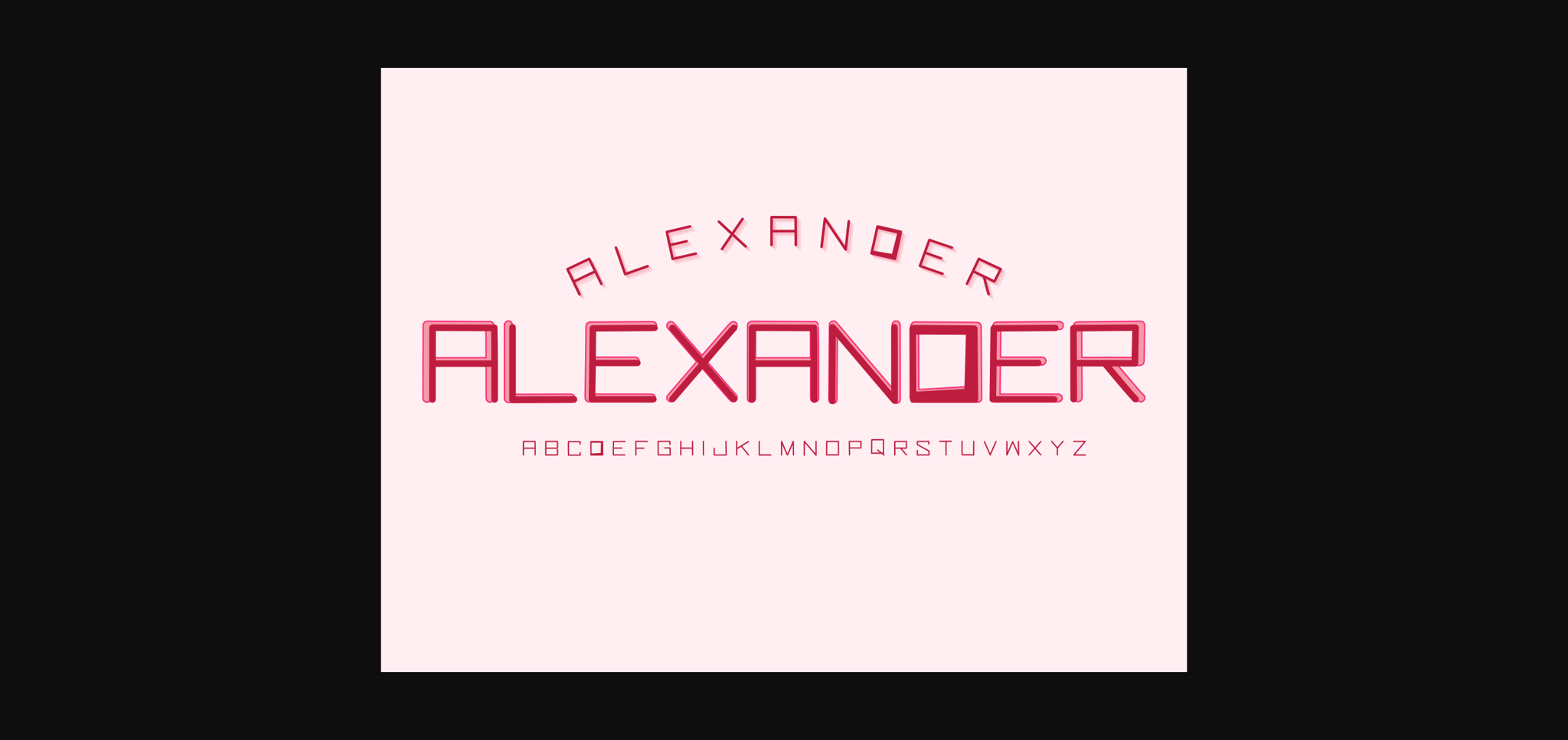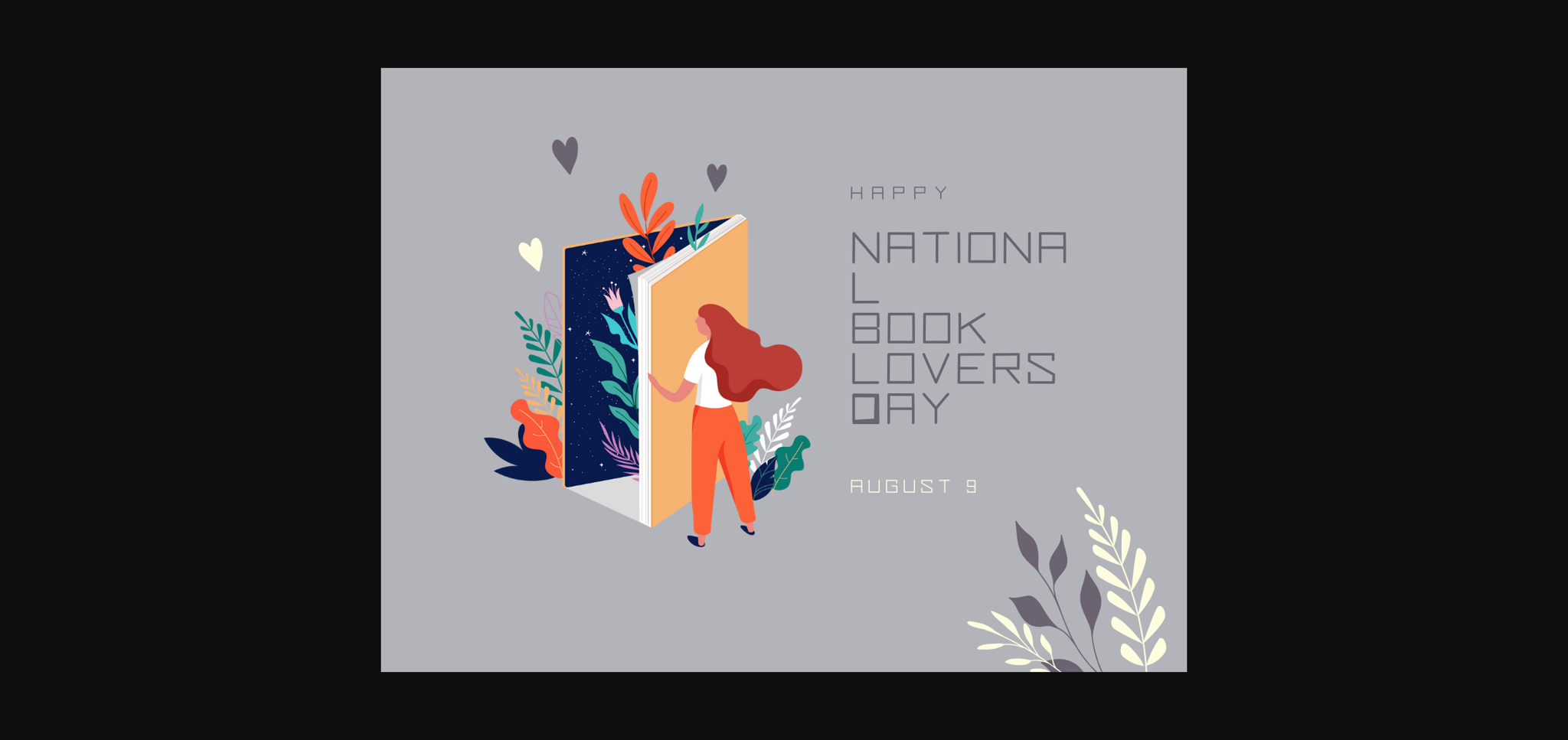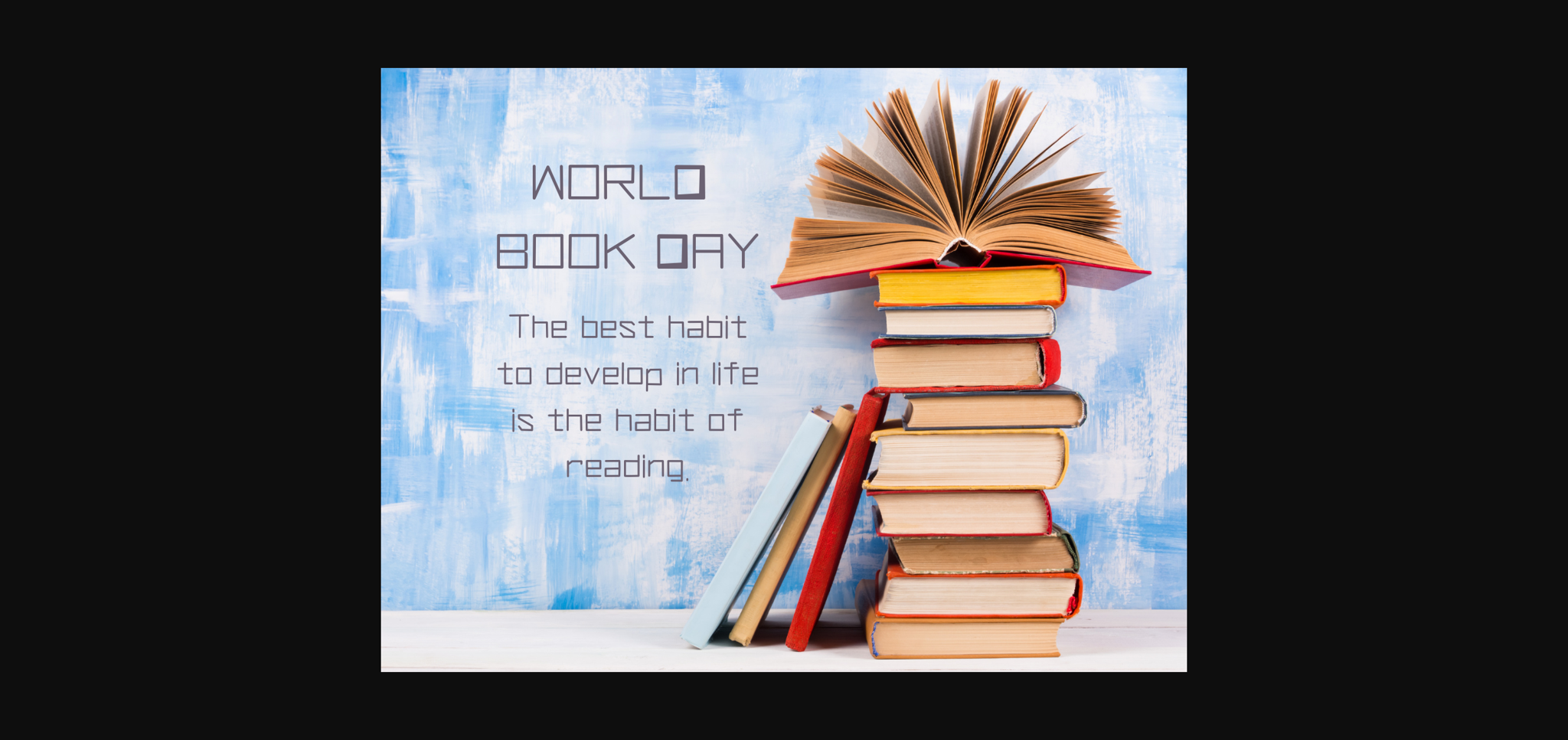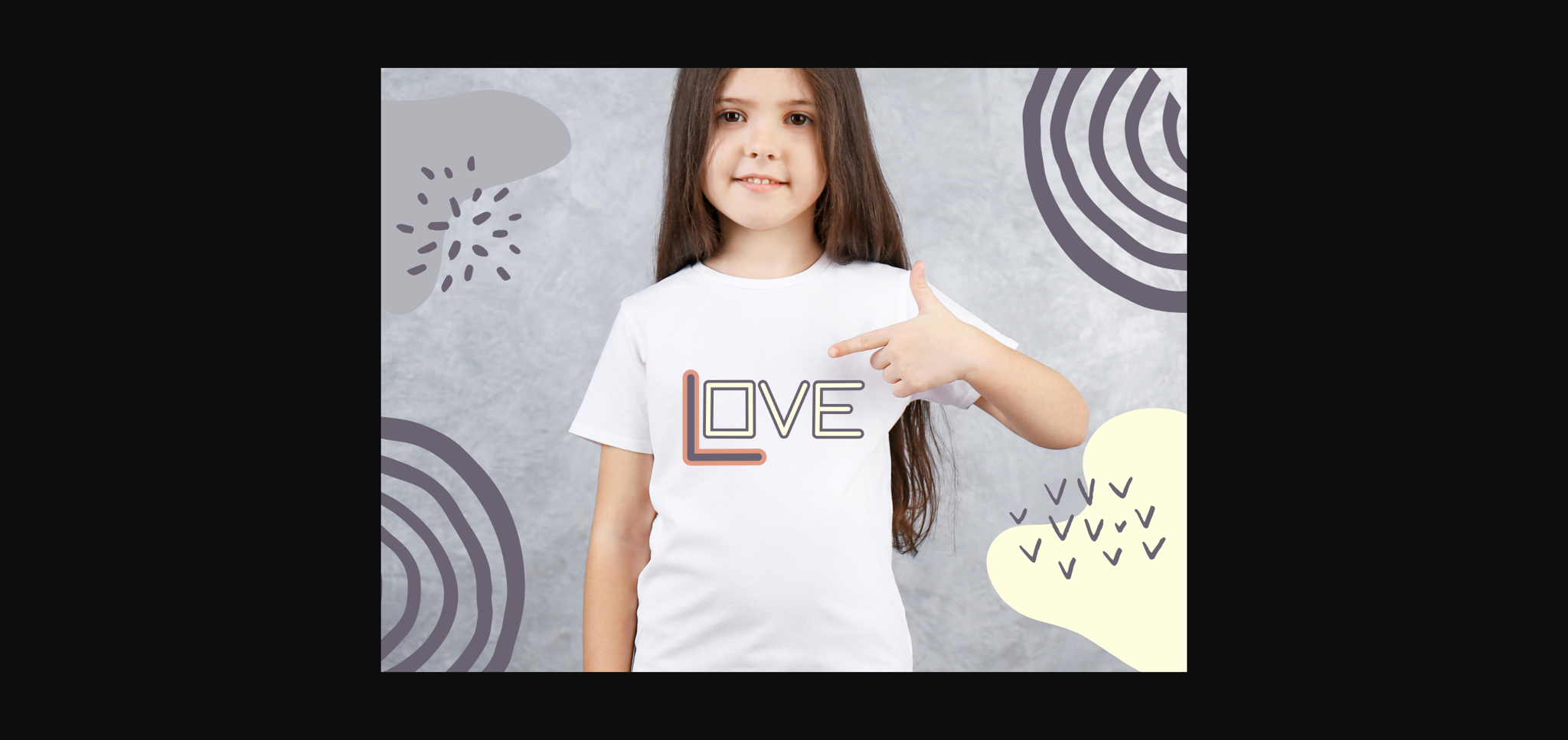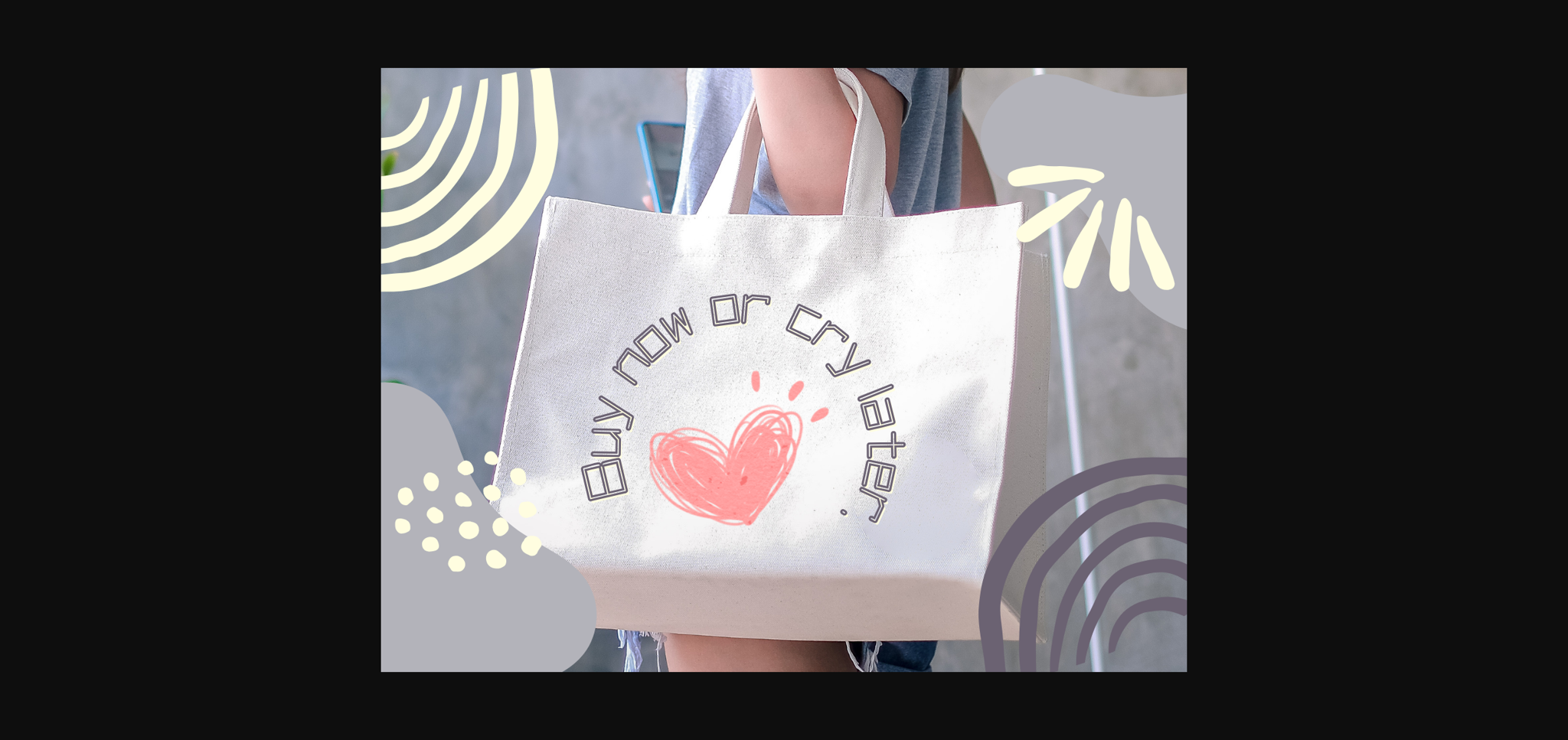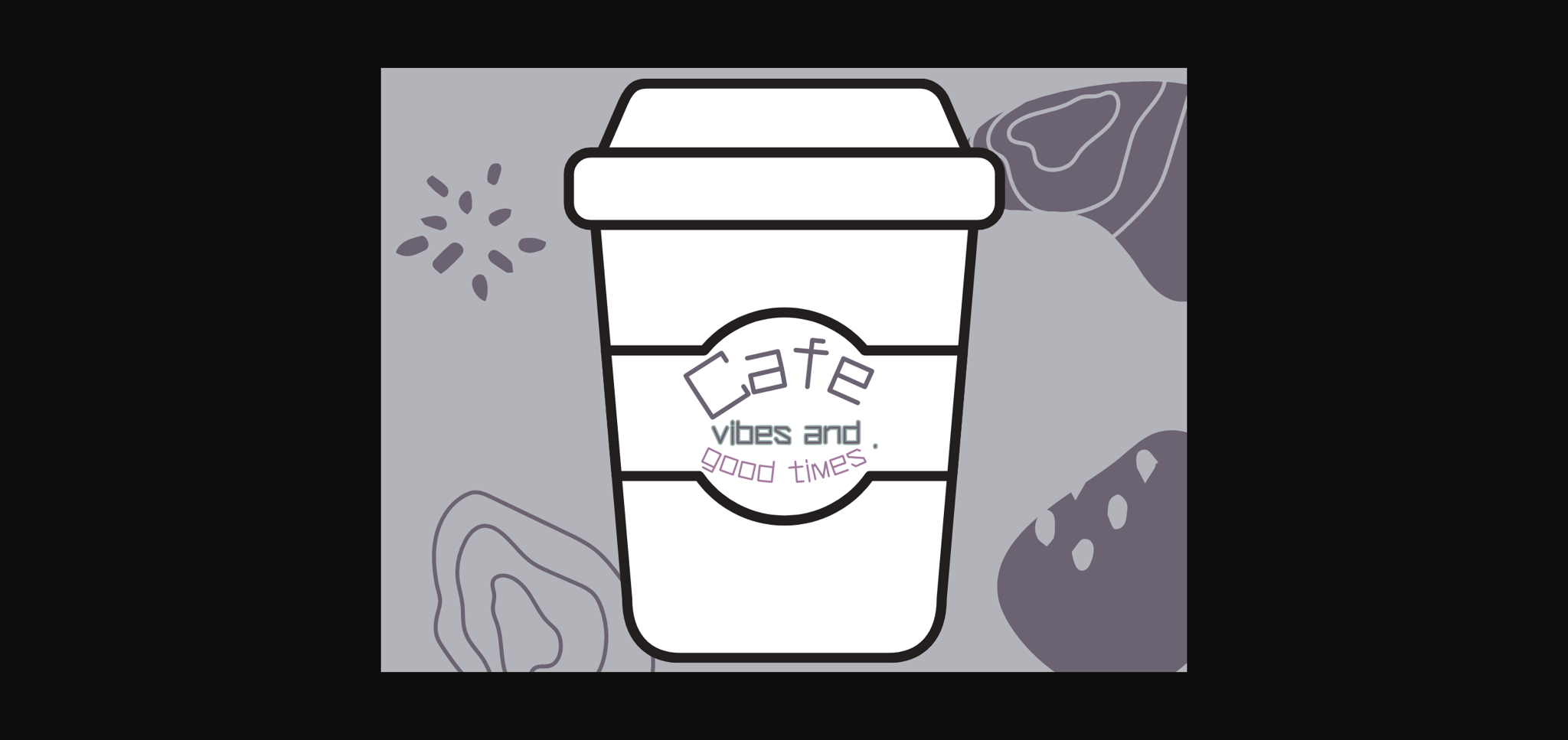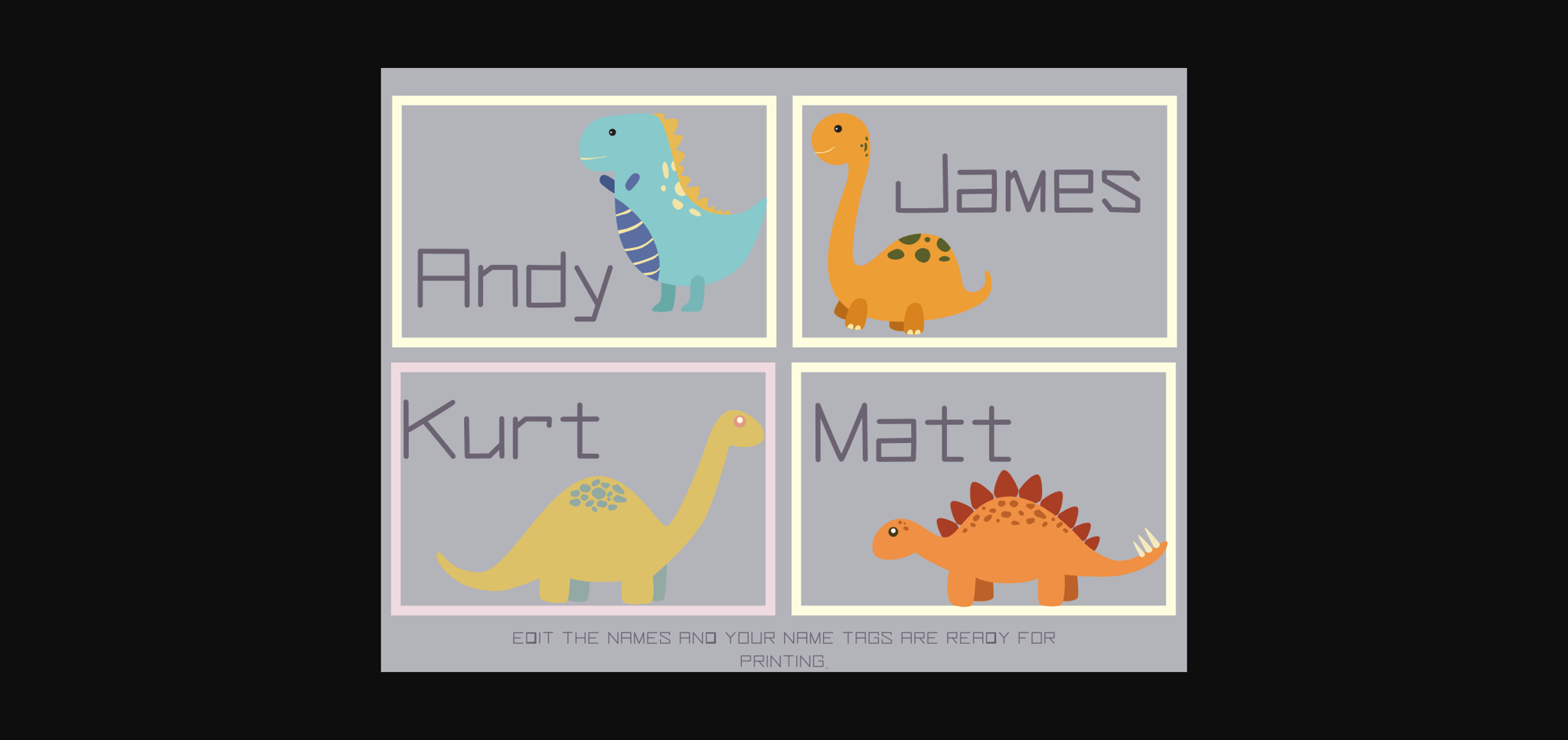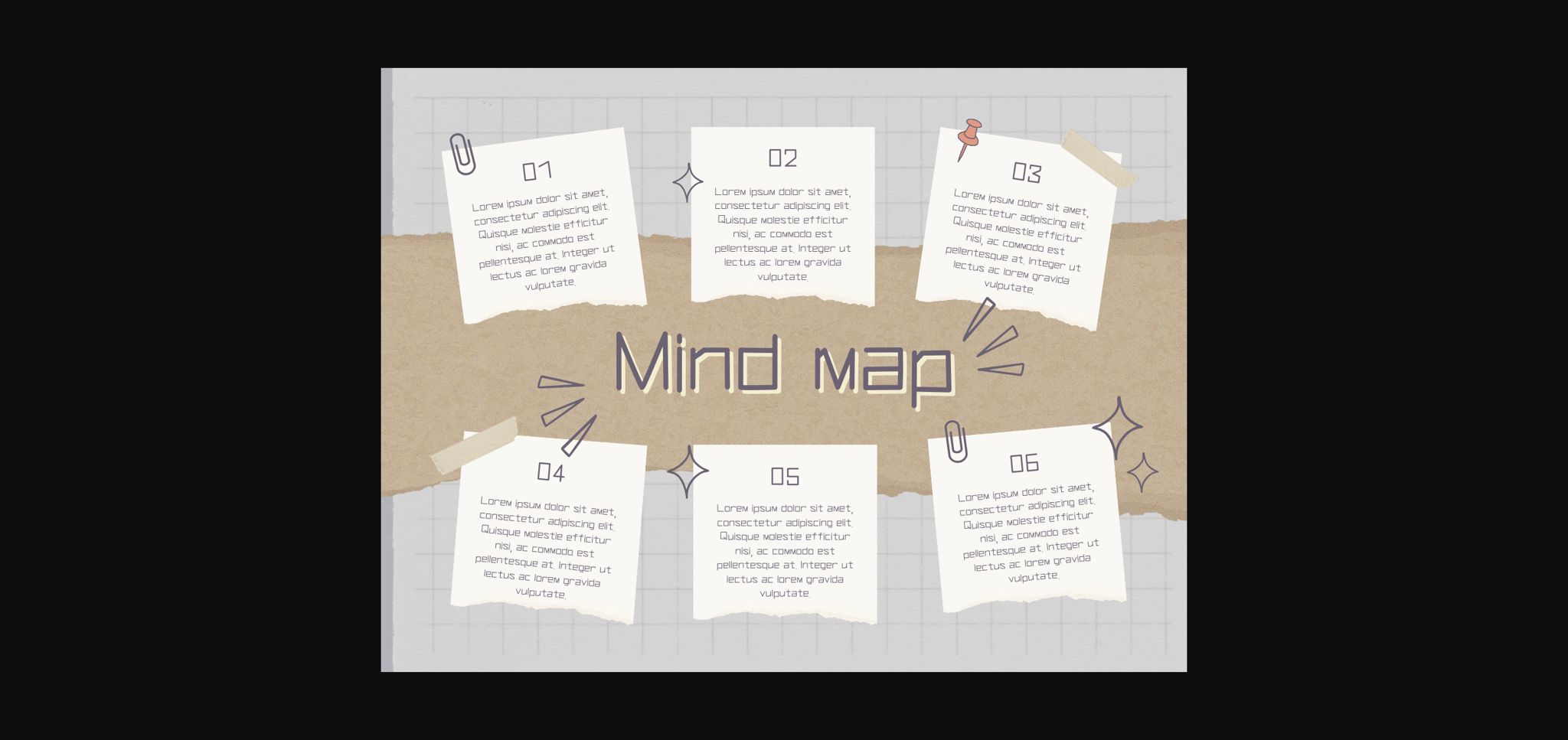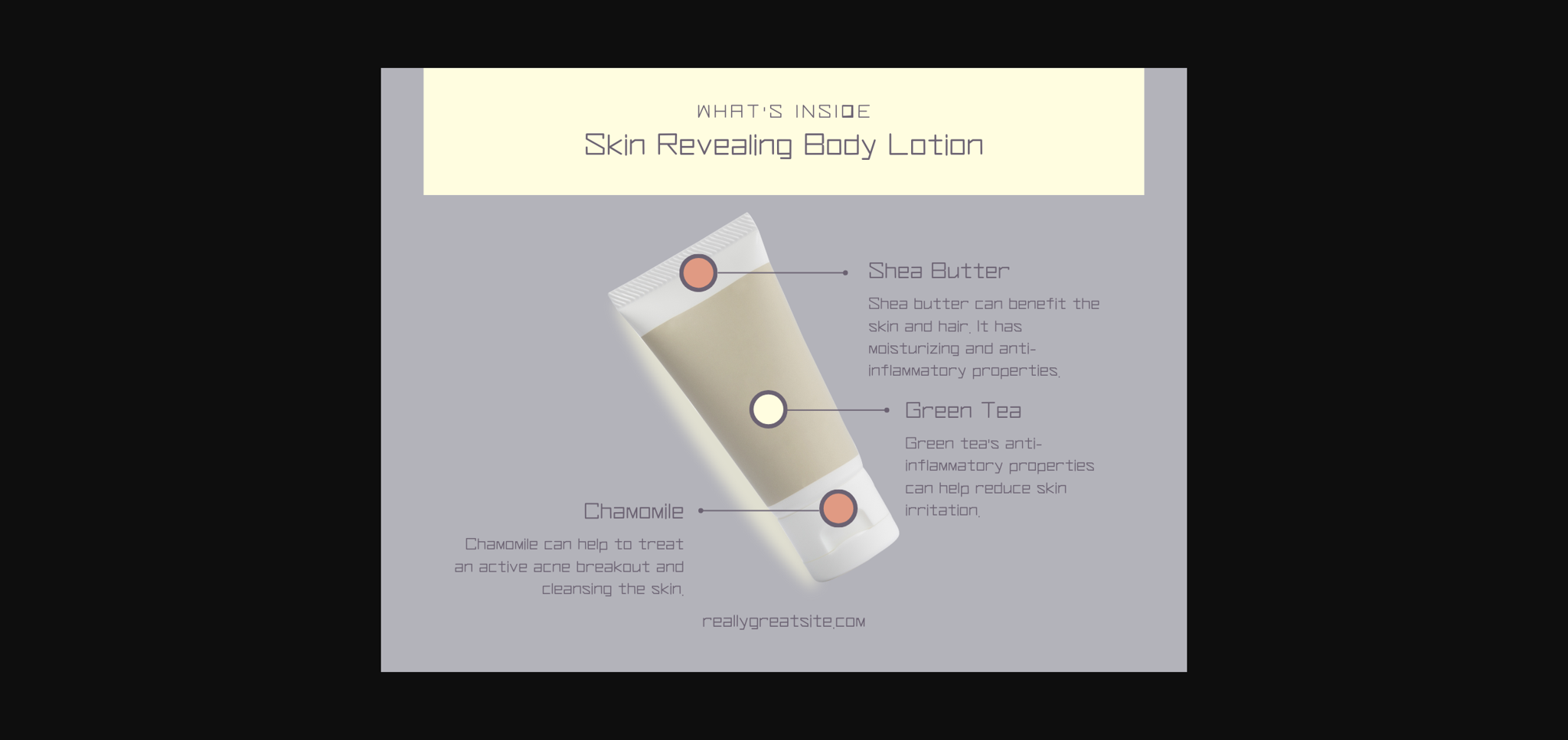
HomeSans Serif FontsAlexander Font Sans Serif Fonts Alexander Font FacebookXPinterestWhatsApp 1 of 11 ... Alexander Font Poster 2... Alexander Font Poster 3... Alexander Font Poster 4... Alexander Font Poster 5... Alexander Font Poster 6... Alexander Font Poster 7... Alexander Font Poster 8... Alexander Font Poster 9... Alexander Font Poster 10... Alexander Font Poster 11... About Alexander Font Alexander is an cute and modern sans serif font. This minimalist and clean vibe can easily apply to your favorite designs such as book covers, magazines, social media posts, invitations, and so much more DOWNLOAD NOW People also explored Hello Summer Font Antums Font Simply Font Loving Stroke Font Brook Bright Font Antique Slabserif JNL Font Ceroxa Be Brave Font Sweet Corn Font 305 0 TagsAlexander Font Previous articleLincoln FontNext articleRelume Font LEAVE A REPLY Cancel reply Comment: Please enter your comment! Name:* Please enter your name here Email:* You have entered an incorrect email address! Please enter your email address here Website: Save my name, email, and website in this browser for the next time I comment. Personal Use Free Ginóra Personal Use Free Read more about this font Bethania Personal Use Free Read more about this font Creativo Personal Use Free Read more about this font Sweety Blue Personal Use Free Read more about this font BLOG How to Install and Use Fonts on Windows, macOS, and Web Projects How to Install and Use Fonts on Windows, macOS, and Web Projects Fonts are a crucial part of design and branding. Whether you’re designing a... Modern Sans-Serif Fonts That Brands Love in 2025 Free Fonts Risk: Why Free Fonts Can Be Dangerous for Designers How to Cut Any Font on Cricut: Convert a Font to SVG (Free)